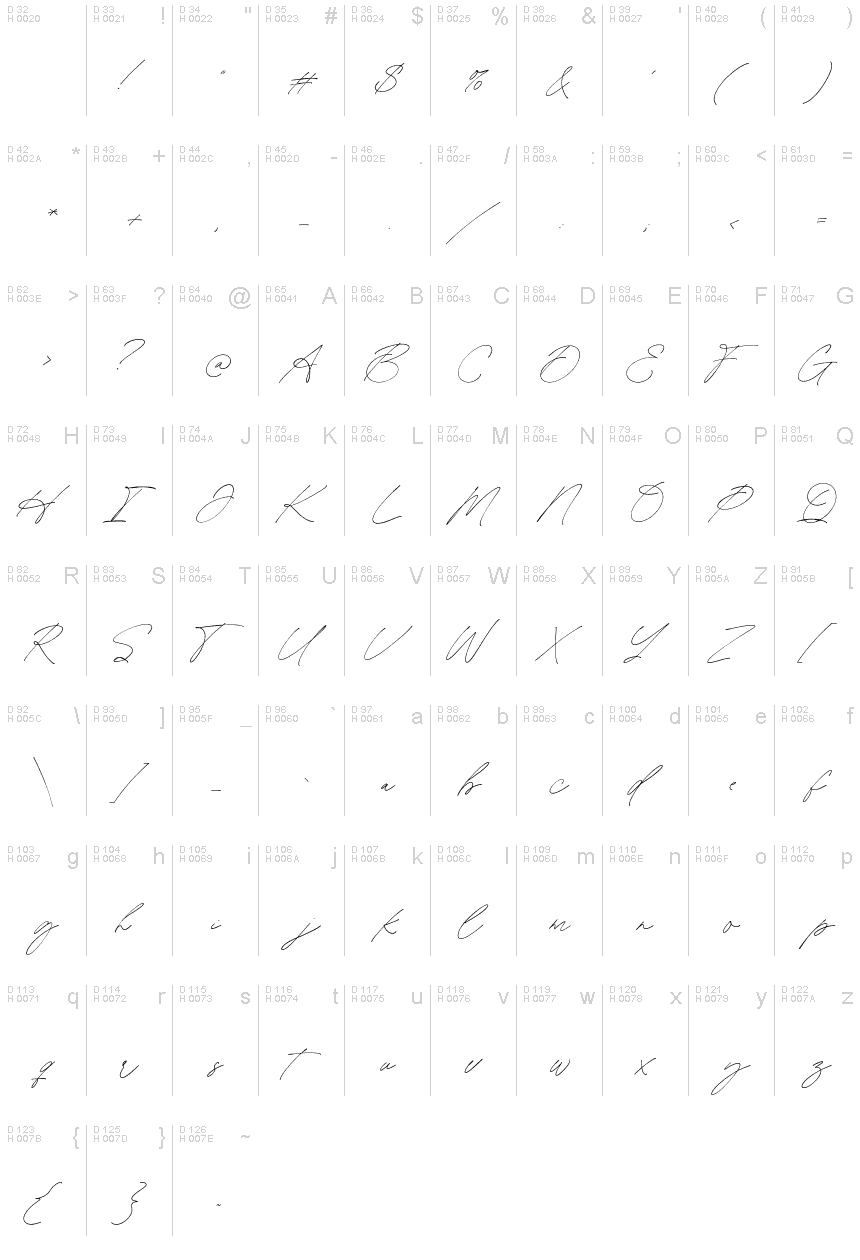
HeritageSignature-Regular
Meet Heritage Signature by Lunas Type, a font that embodies the elegance of handwritten artistry with its extra-light weight and fluid signature style.
Perfect for projects demanding a touch of sophistication, this font shines in branding, wedding invitations, and personalized stationery. Its delicate lines and graceful curves capture the essence of bespoke craftsmanship, making every design appear uniquely tailored. Heritage Signature isn't merely a typeface; it's an essential tool for creators aiming to infuse their work with an authentic, intimate touch that stands out in today's digital landscape.
Unleash your creativity with this exquisite font and elevate your designs to new heights of refined expression.